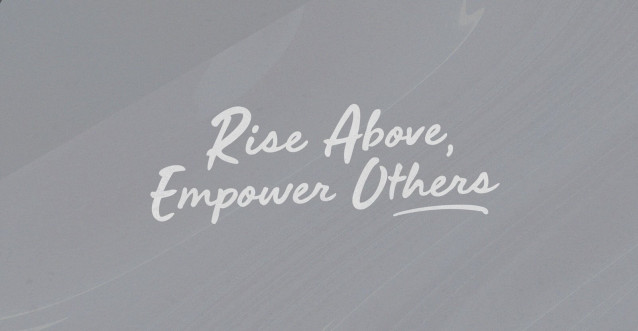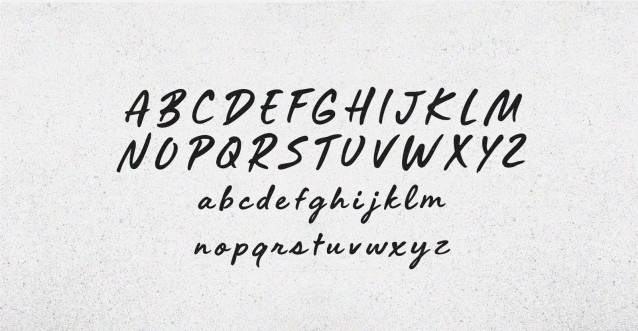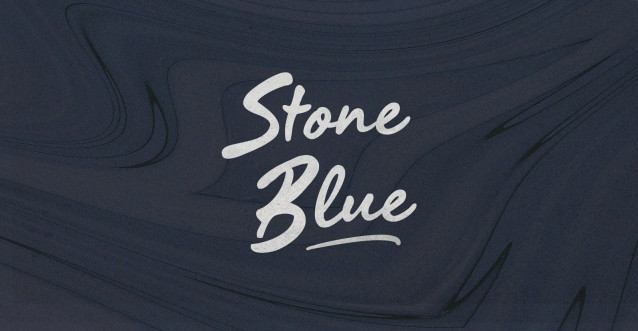
Stone Blue Font
Stone Blue Font – Handwritten Brush Script Font. Stone Blue, a color reminiscent of celestial bodies, harmonizing with the human psyche, stirring thoughts that transcend the boundaries of space and time. Its captivating aura beckons the inquisitive mind to delve deeper into the mysteries of the cosmos, as if following the trail of starlight illuminating the path to profound discoveries.